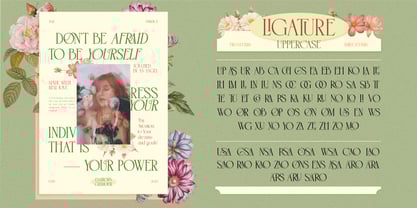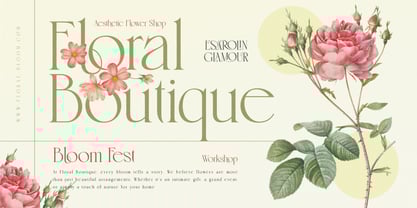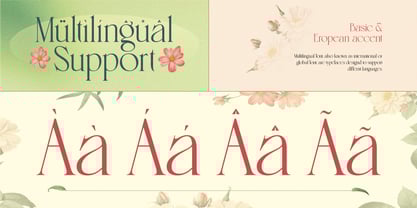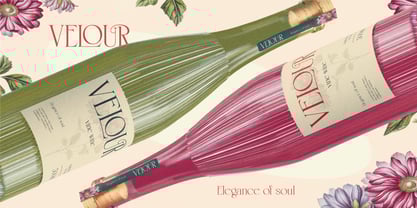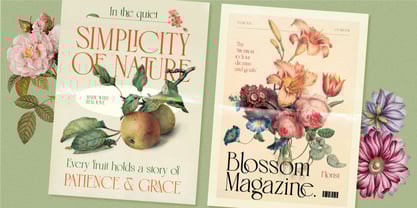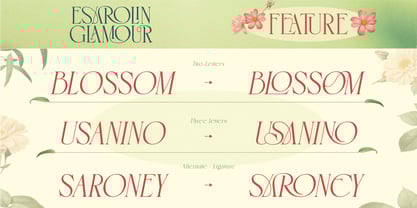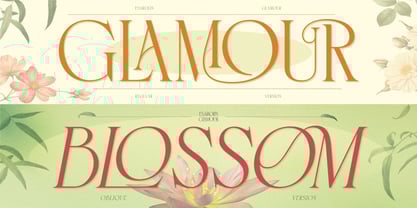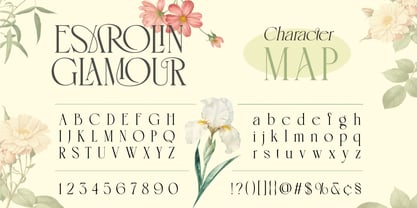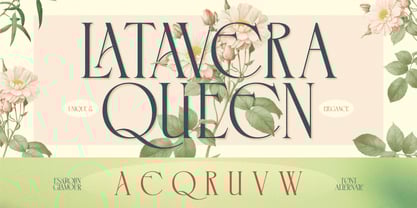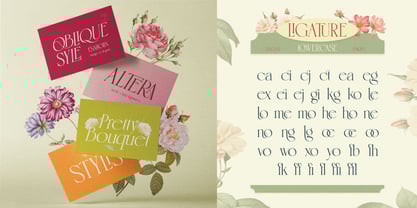
Esarolin Glamour
by Starhand
The Esarolin Glamour Font Family was designed by Kadek Sisnu Sunaya Santika and published by Starhand. Esarolin Glamour contains 2 styles and family package options. More about this family
Esarolin Glamour is an elegant serif typeface that blends timeless sophistication with a modern twist. Its graceful curves and artistic details make it the perfect choice for projects that demand luxury and renement. This typeface comes in two styles Regular and Oblique crafted with a balance of classic charm and contemporary air. With its unique character set and versatile design, Esarolin Glamour shines in high-end branding, editorial layouts, wedding invitations, packaging, and more. Let Esarolin Glamour bring a dramatic, exclusive, and unforgettable touch to your next design.
Designers: Kadek Sisnu Sunaya Santika
Foundry: Starhand